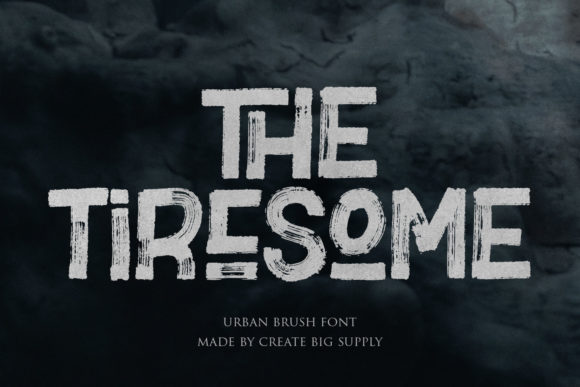
Welcome to the world of The Tiresome Font, a display brush font that exudes boldness, strength, and solemnity. Its unique, awe-inspiring characters will add a magical touch to your designs, leaving a lasting impression on your audience.
Unleash your creativity with The Tiresome Font and craft stunning wedding welcome signs that mirror the significance of the occasion. Its dignified strokes will convey the gravity of the moment, setting the stage for a memorable celebration.
With The Tiresome Font, you'll find yourself immersed in a world of possibilities. Design invitations that capture the essence of romance and elegance, evoking the joy and excitement of the upcoming union. Create social media graphics that radiate sophistication, attracting attention and generating buzz.
Go beyond the ordinary and explore the limitless potential of The Tiresome Font. Its PUA encoding opens up a realm of glyphs and swashes, empowering you to add intricate details and captivating accents to your designs.
The Tiresome Font is more than just a font; it's an artistic expression that will elevate your creations to new heights. Its enchanting aura will captivate your audience, leaving them spellbound by your design prowess.